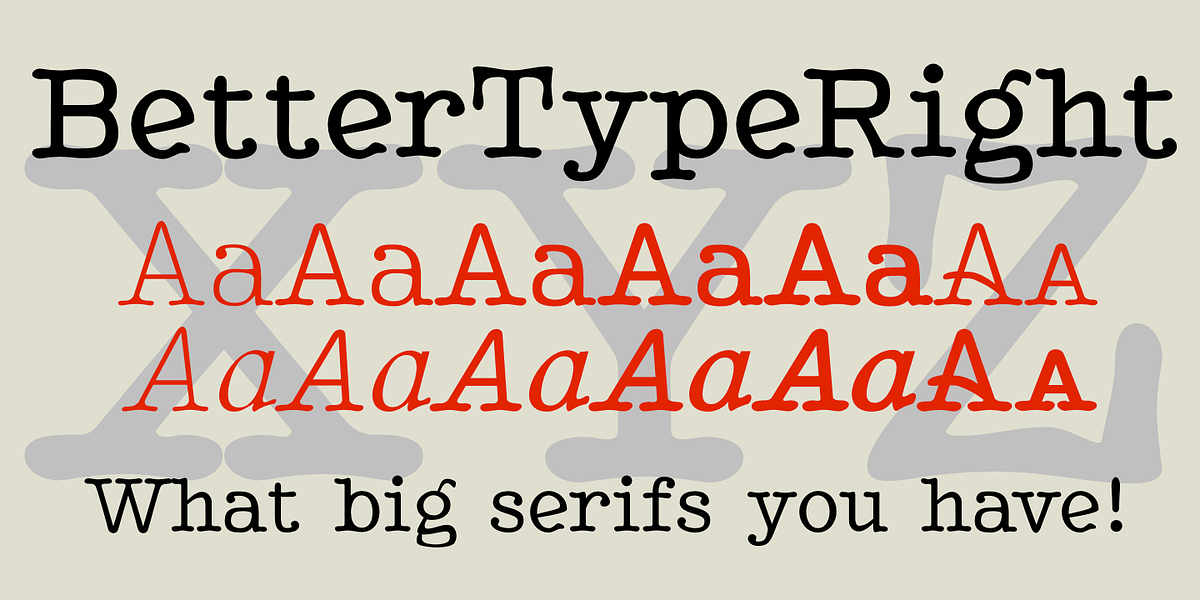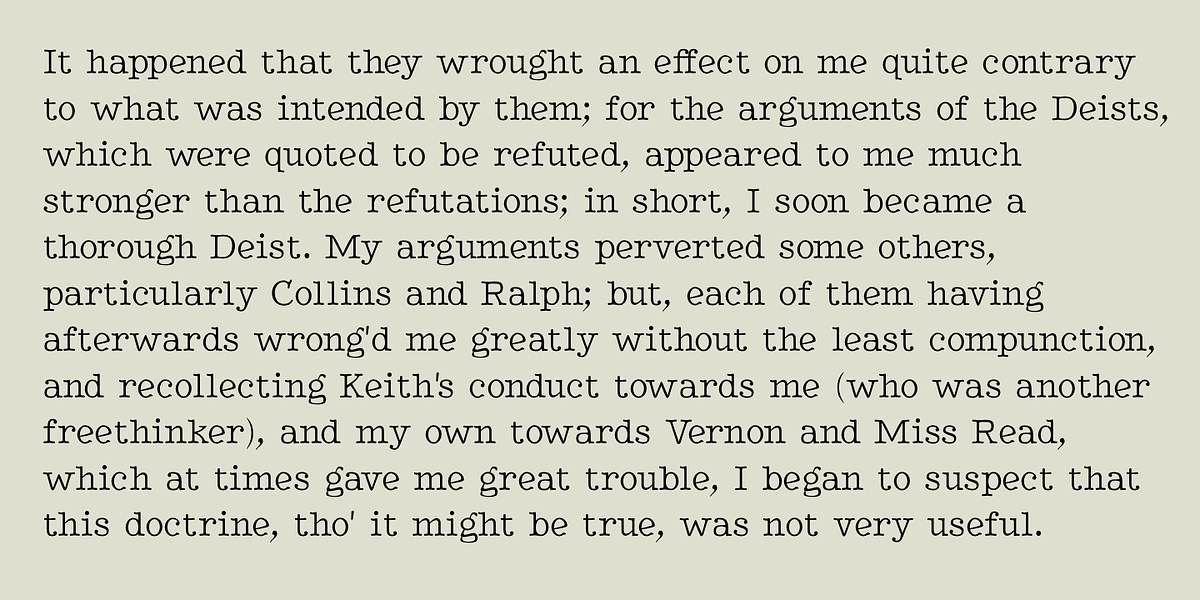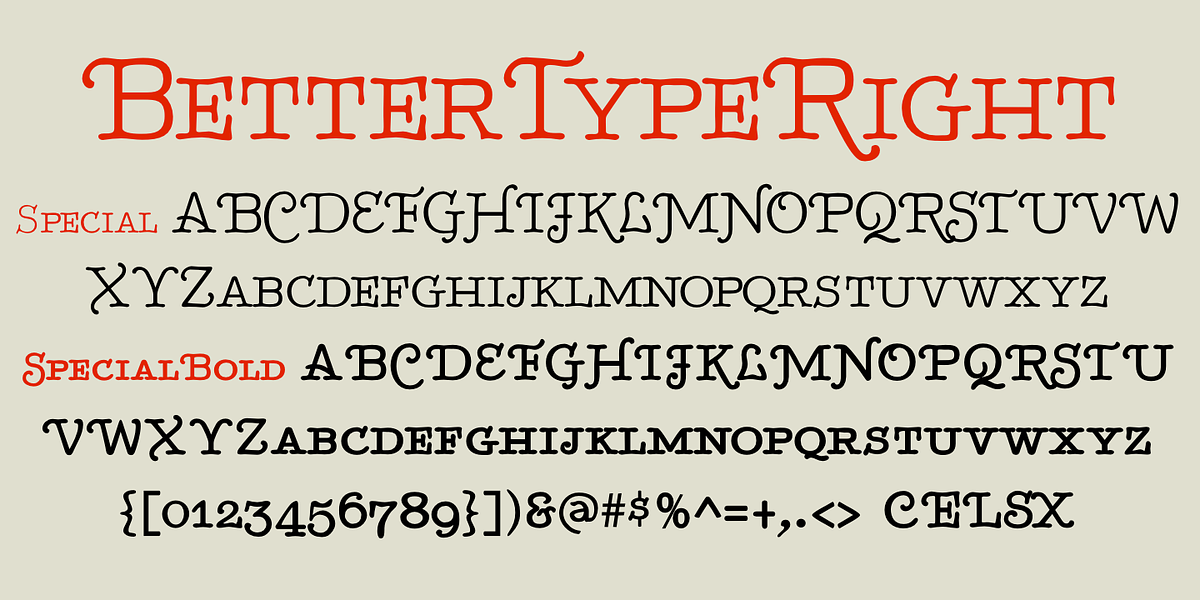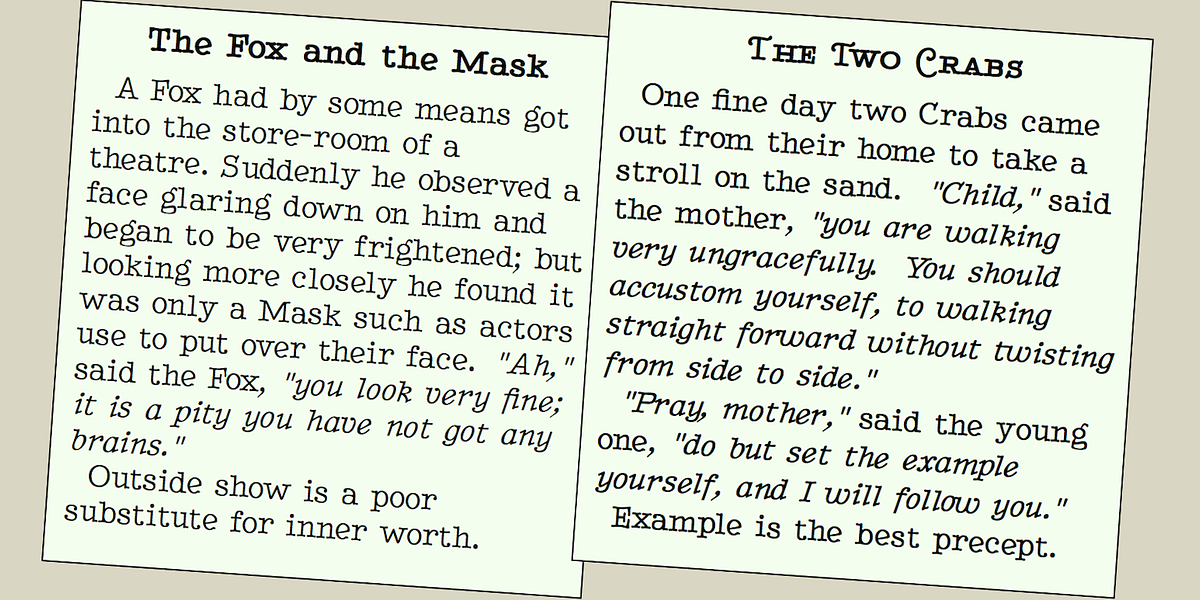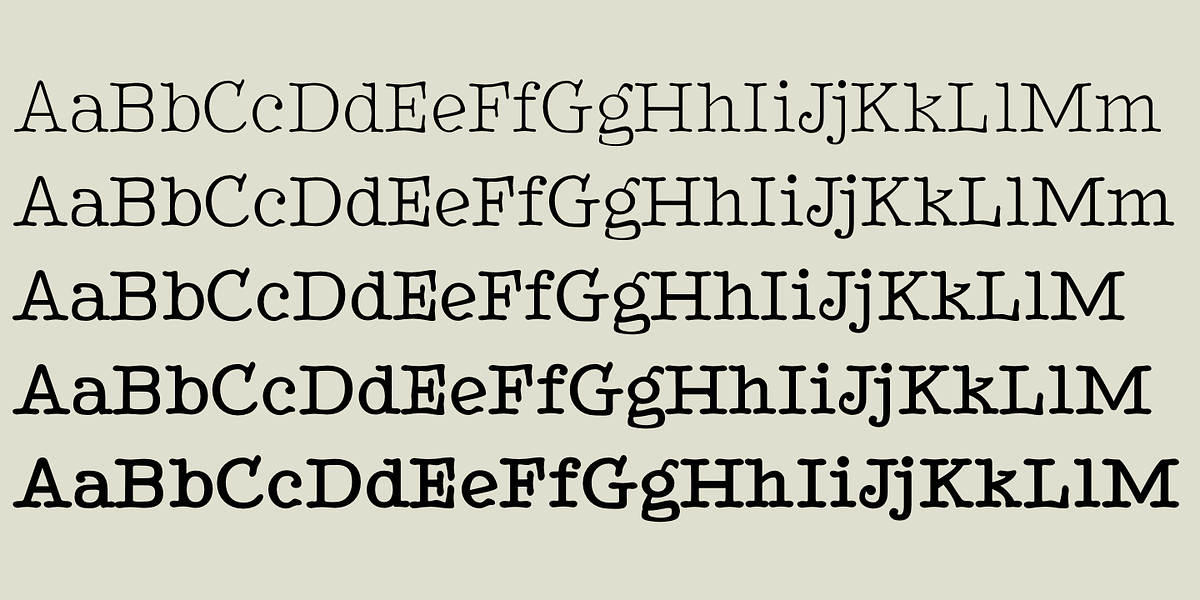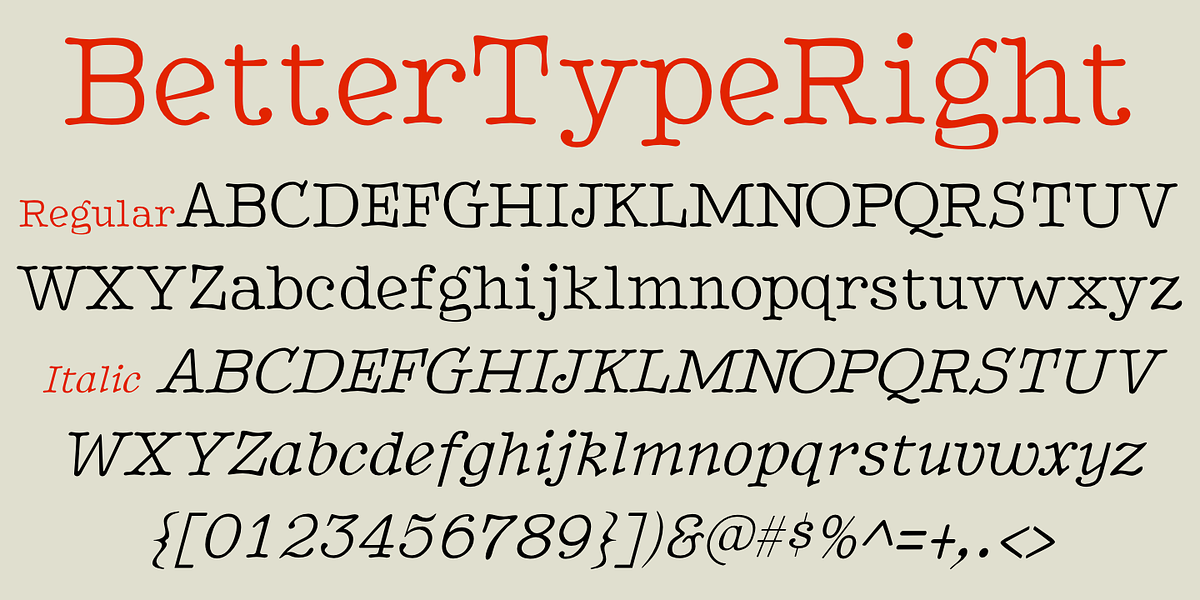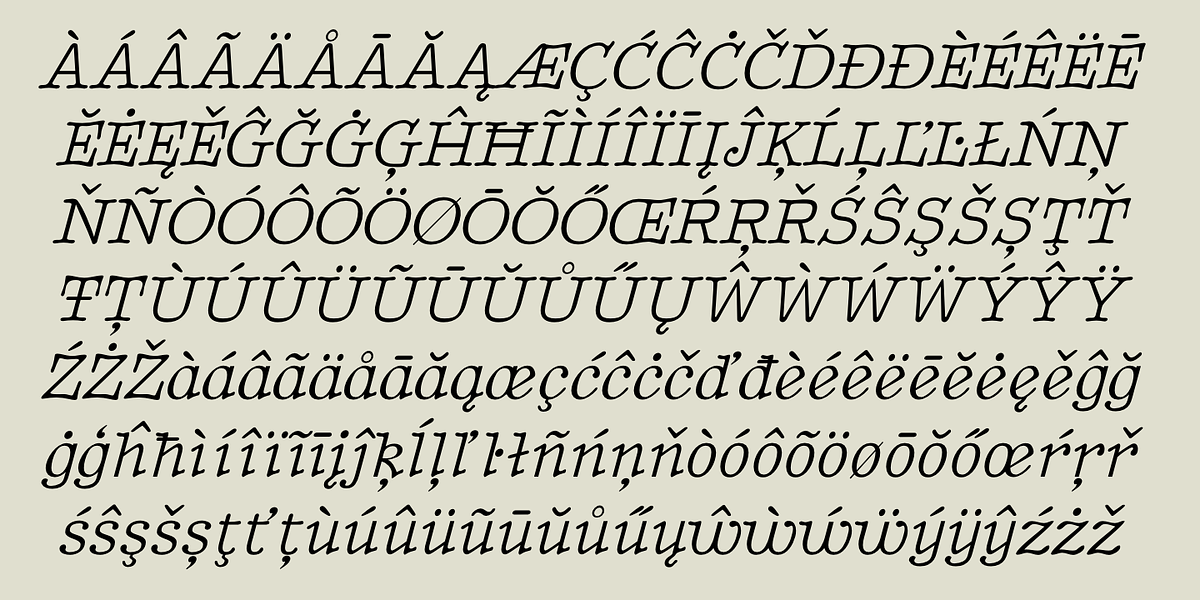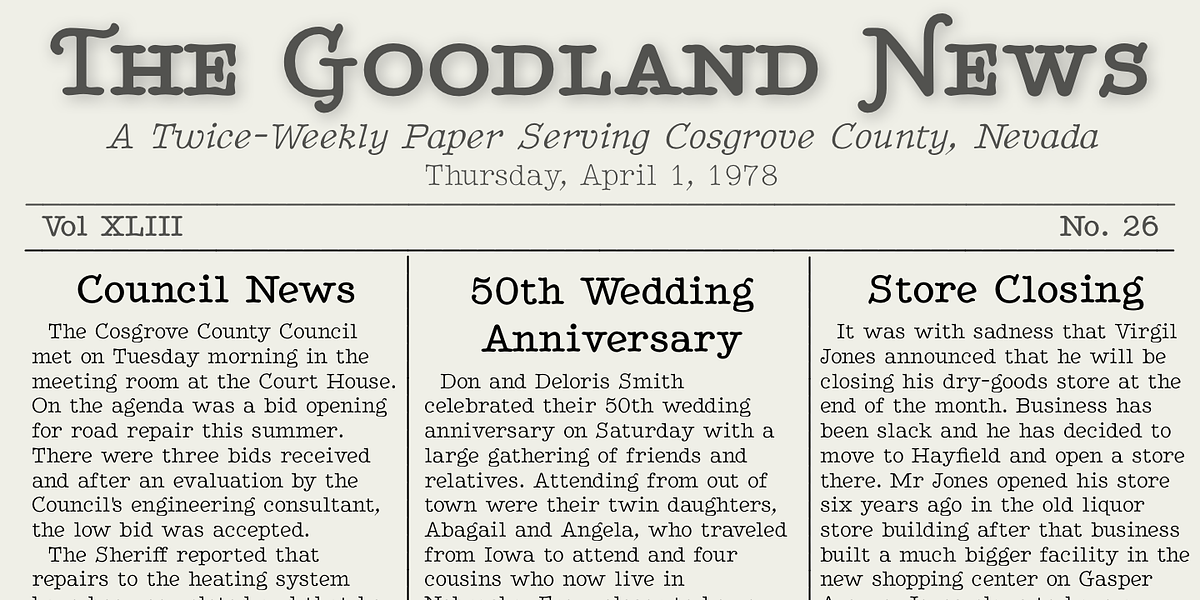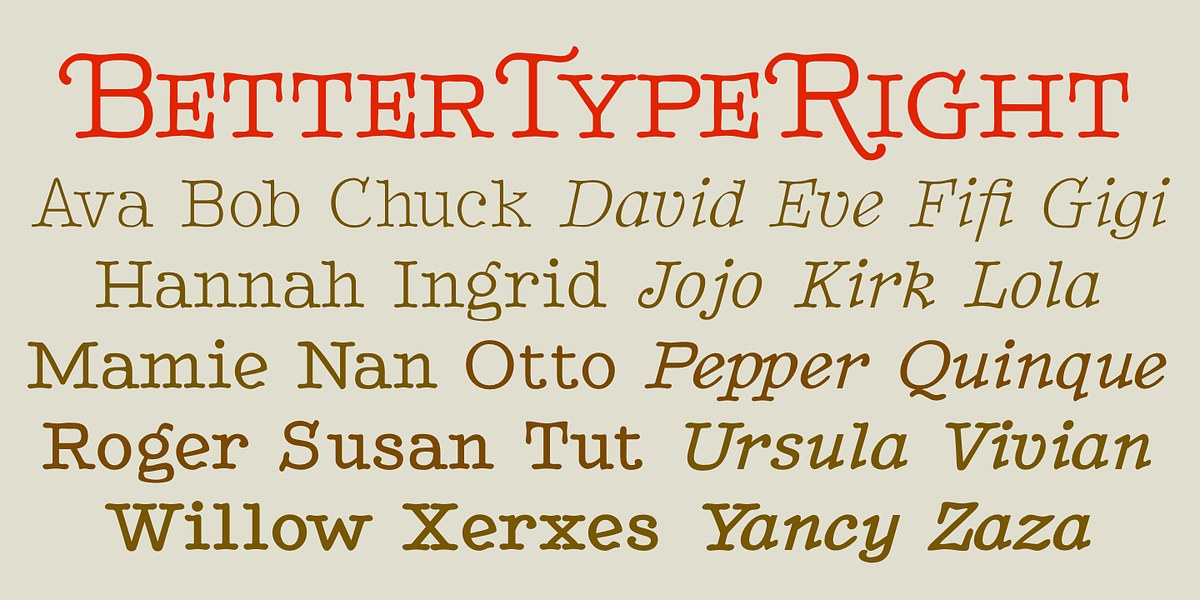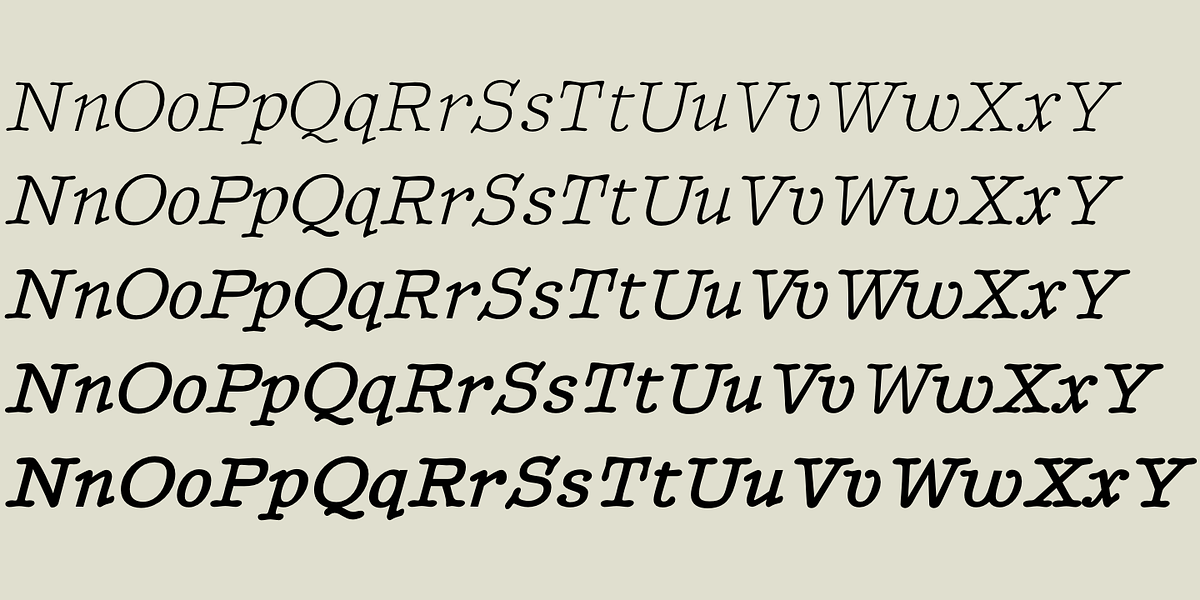
BetterTypeRight
BetterTypeRight is a serif font that draws inspiration from typewriter typefaces. It features prominent serifs and a noticeably high x-height. The font includes swash and small caps versions, adding to its versatility. BetterTypeRight strikes a balance between decorative flair suitable for display use and readability appropriate for text applications.